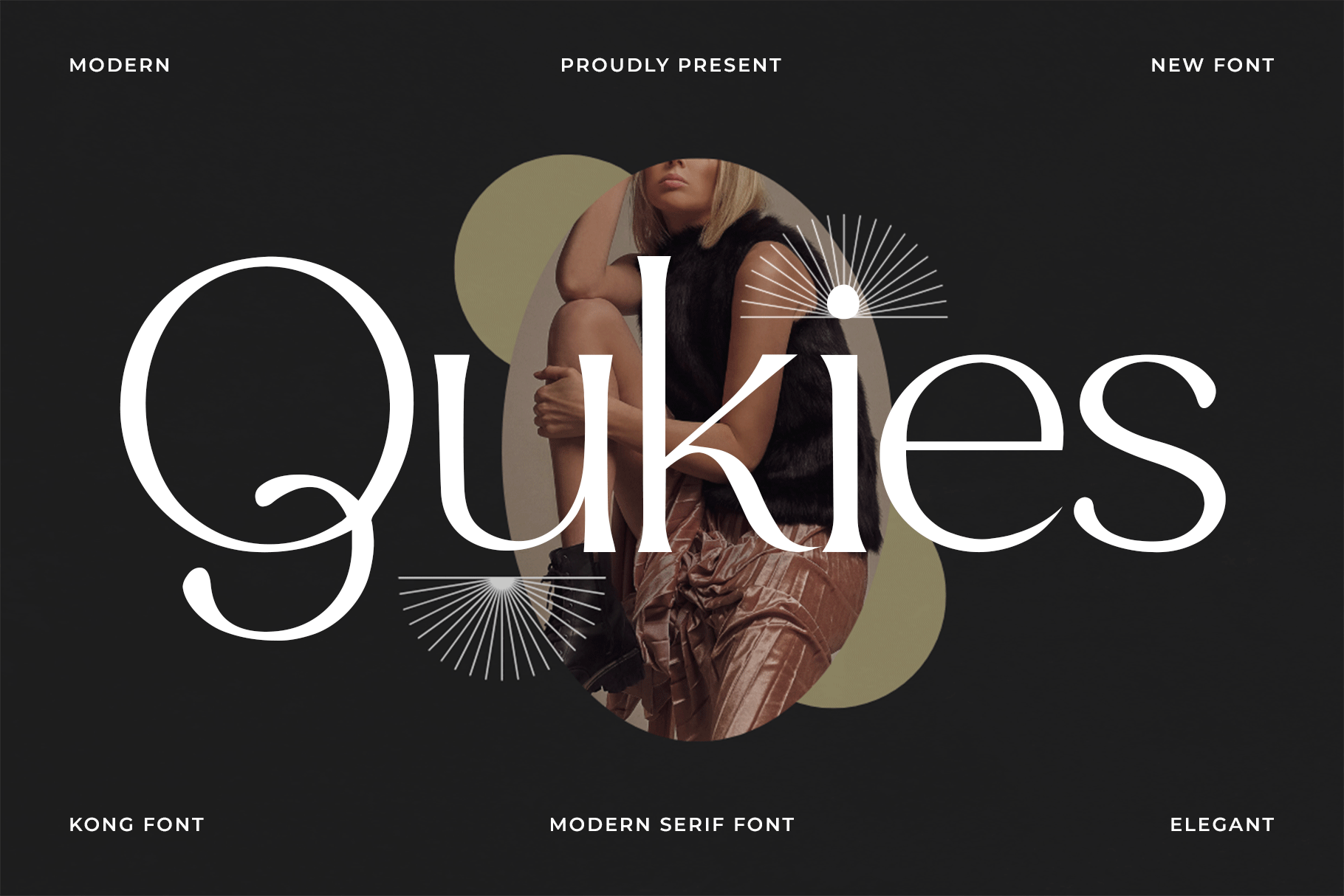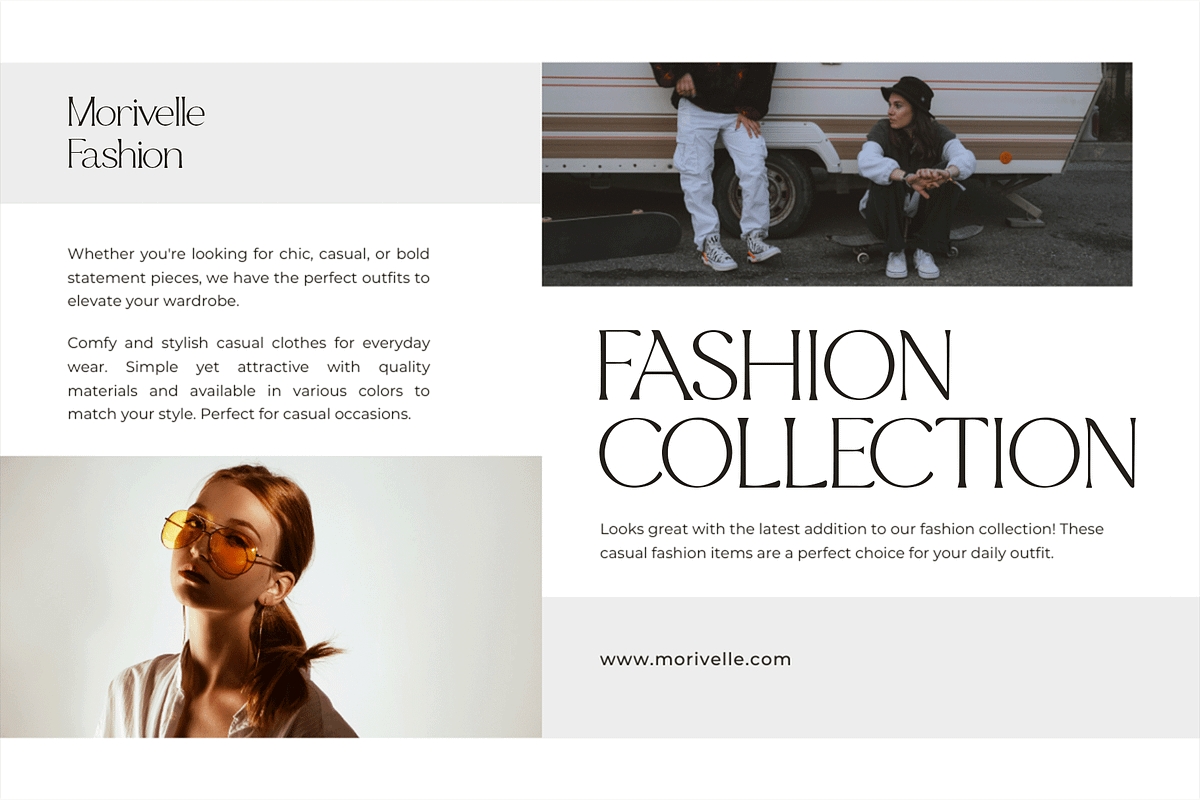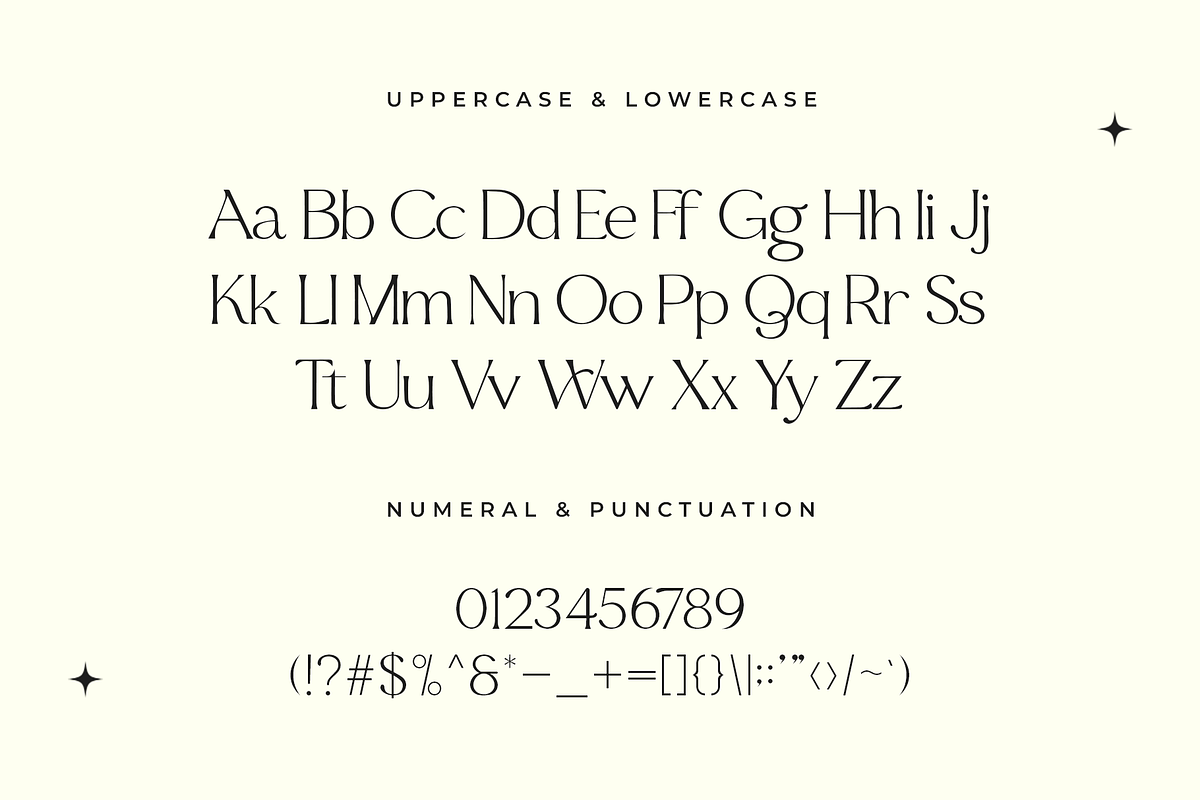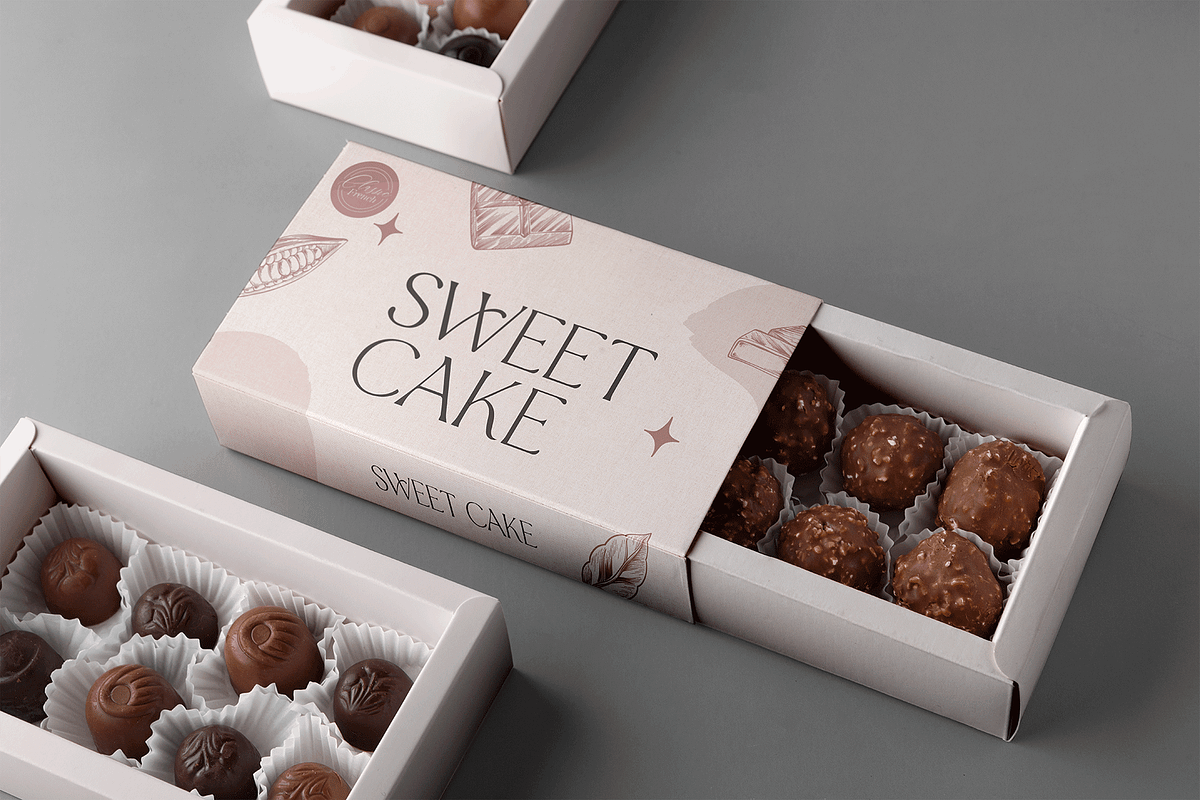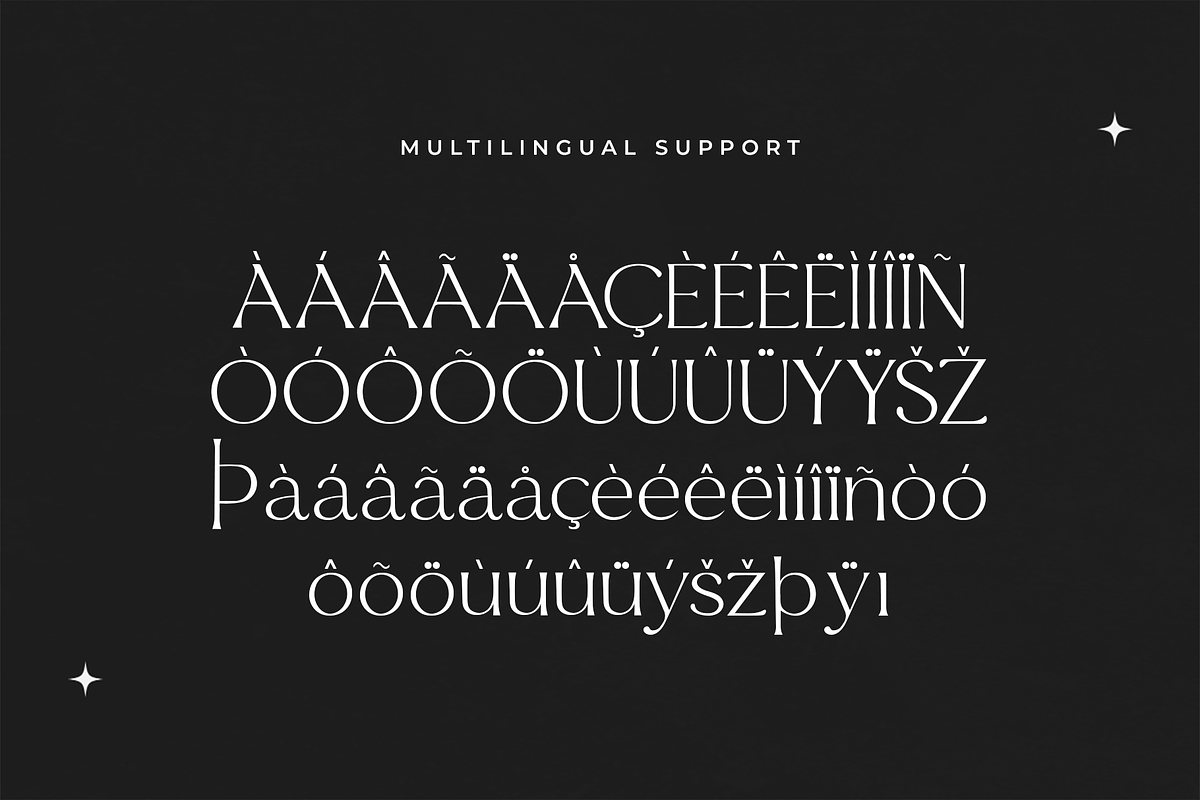
Qukies – Modern Serif Font
Introducing Qukies, a modern serif font designed to blend timeless sophistication with a sleek, updated style. With its sharp serifs, refined curves, and balanced proportions, Qukies offers an elegant yet approachable aesthetic that works beautifully across a wide range of design projects.
Whether you’re crafting editorial layouts, branding identities, packaging designs, or wedding invitations, Qukies delivers versatility and charm. Its strong character shapes and stylish presence ensure your work stands out with professionalism and grace.
Elevate your designs with the modern classic touch of Qukies a must have serif font for today’s creative minds.